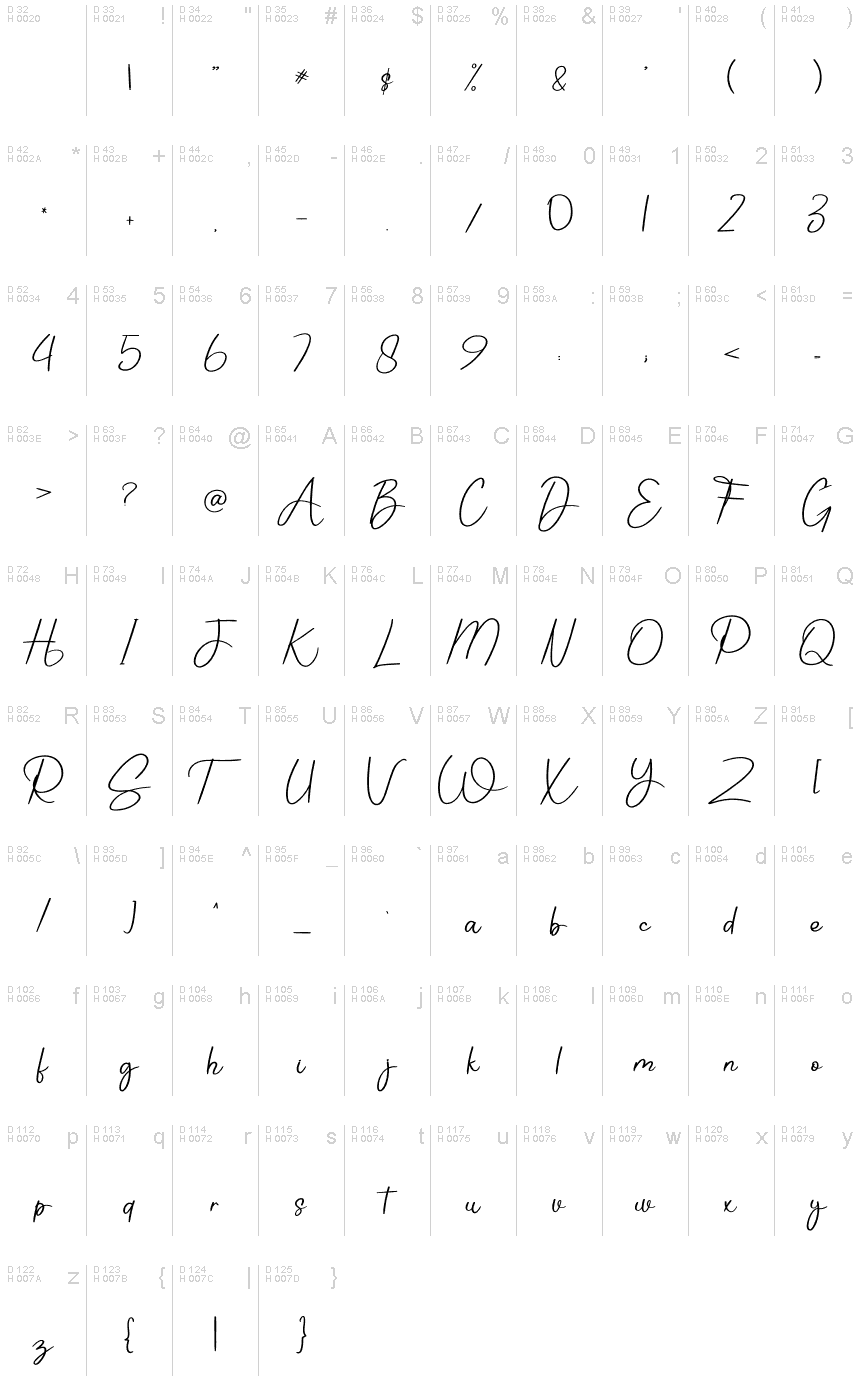
Willona
Willona, designed by Etik Fatimah, is an exquisite handwritten font that adds a touch of elegance to any project.
With its extra-light weight, this stylish and dainty script font is perfect for creating stunning logos and captivating branding materials. It also lends itself beautifully to labels, photography enhancements, watermarks, and special events. The font's PUA encoding allows for effortless access to its wide range of glyphs and swashes, making it a versatile choice for all your lovely projects that demand a beautiful script taste.
Let Willona elevate your designs with its graceful charm.